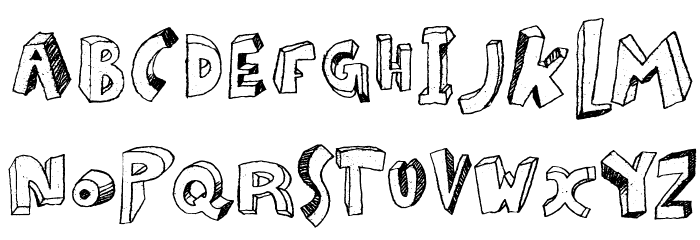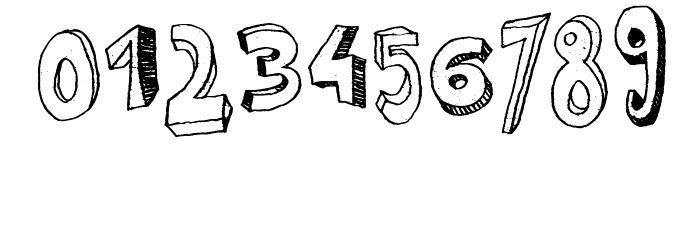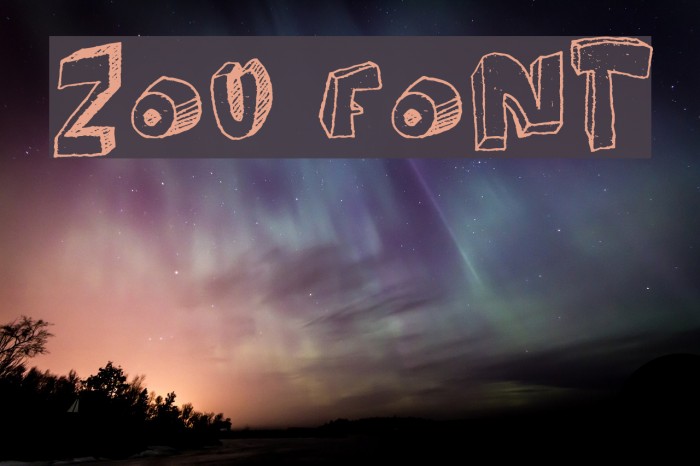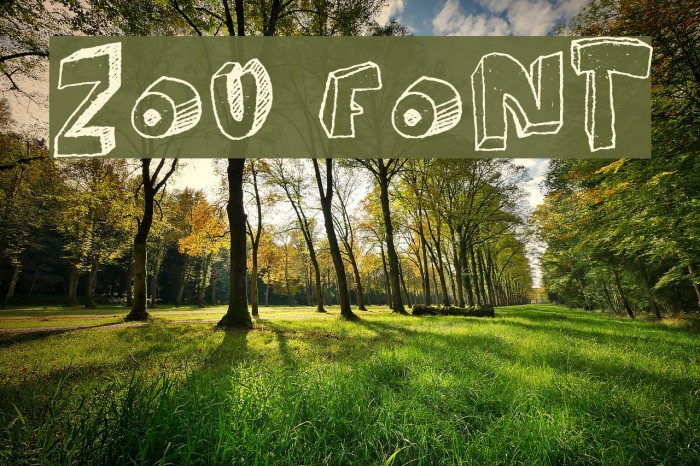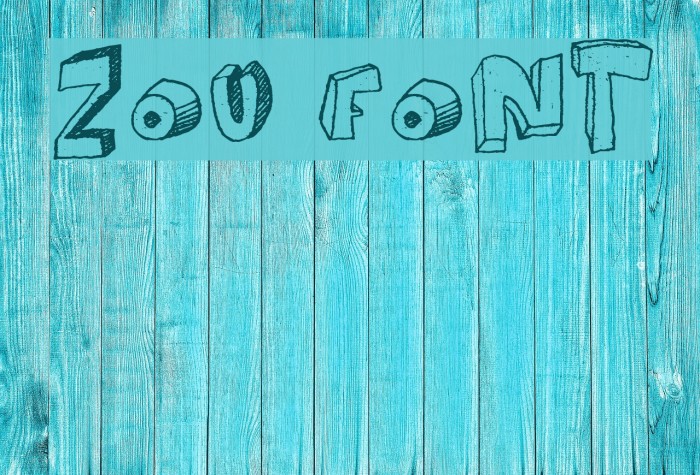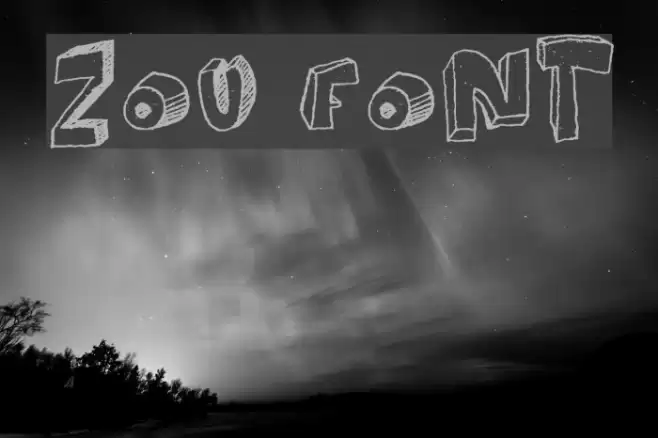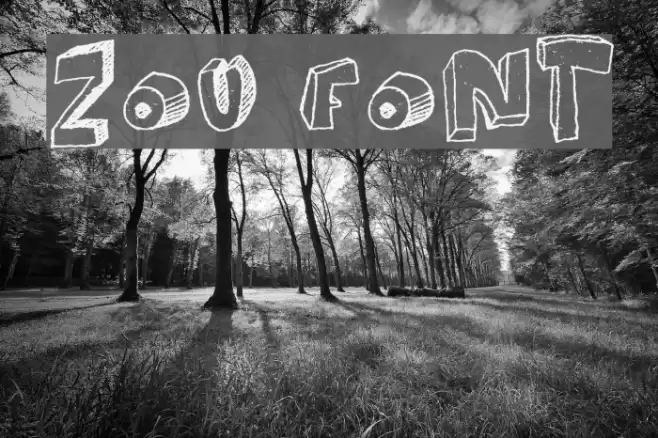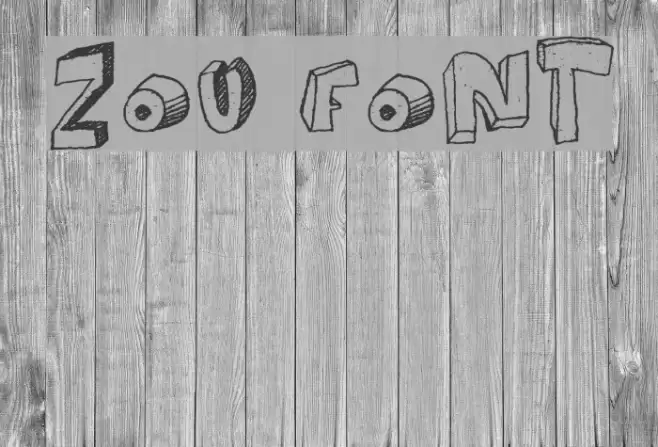
Zou Font
This font features a playful and bold 3D effect, with each character appearing as if it has been hand-drawn with a thick marker. The letters have a cartoonish and whimsical style, with exaggerated angles and curves that give them a dynamic and lively appearance. The uppercase and lowercase letters maintain a consistent style, with a slightly irregular and sketch-like quality that adds to the font's charm. The numbers follow the same playful design, making them stand out with their bold outlines and shadow effects. This font is perfect for projects that require a fun and informal touch.
A playful, hand-drawn 3D effect font with bold outlines and a whimsical style.
- Proposed Projects: Ideal for children's books, comic strips, playful branding, and creative posters.
- Overall Style: Playful, Cartoonish
- Use Case: Headlines, Posters, Branding